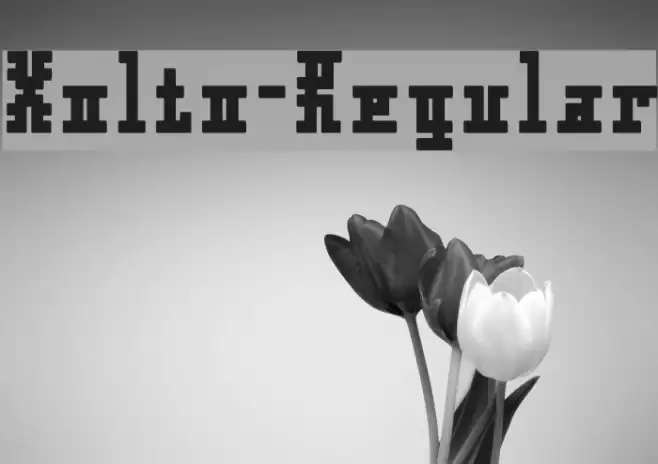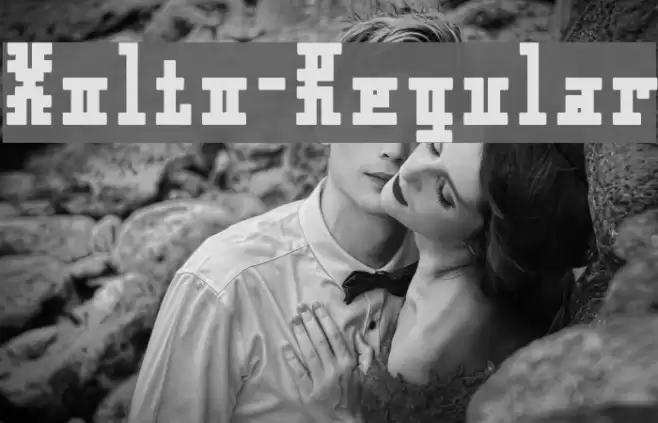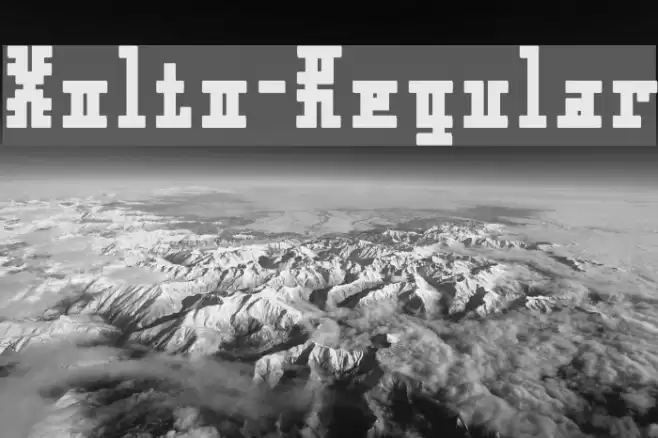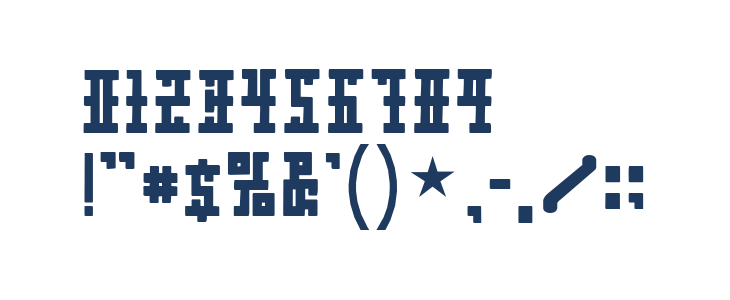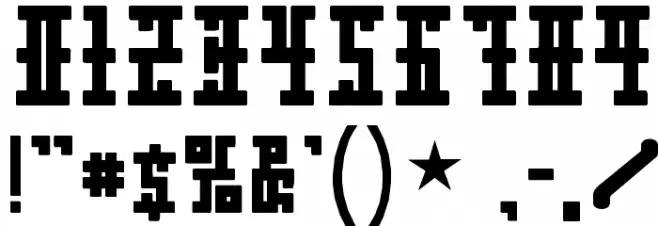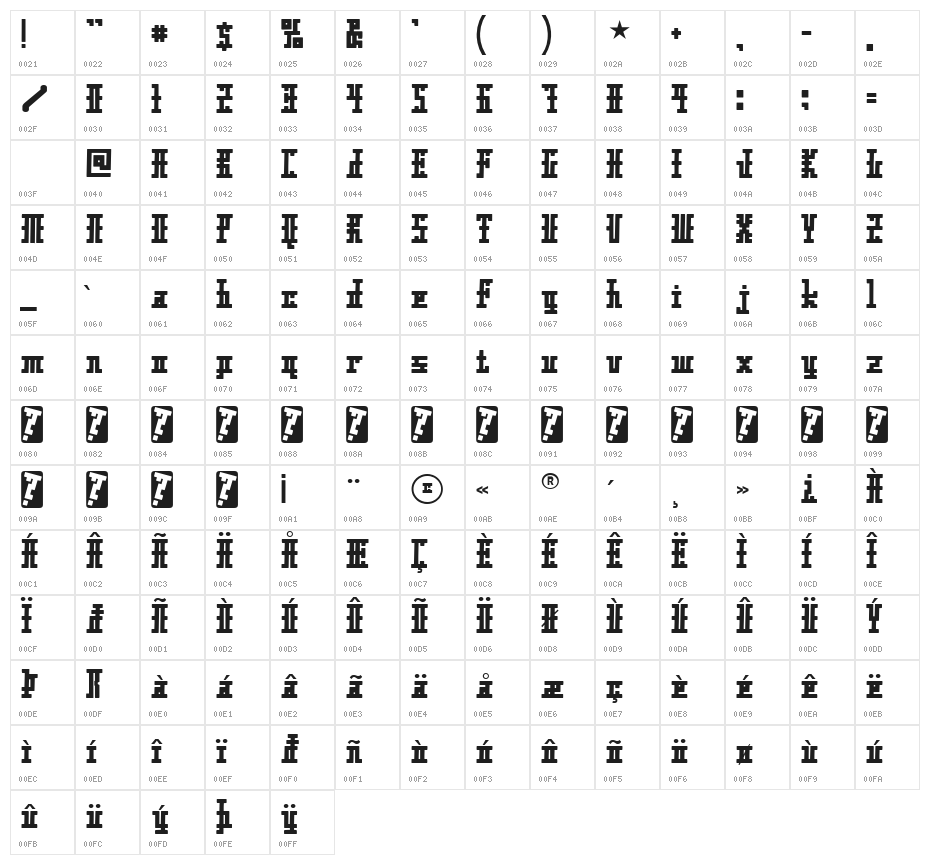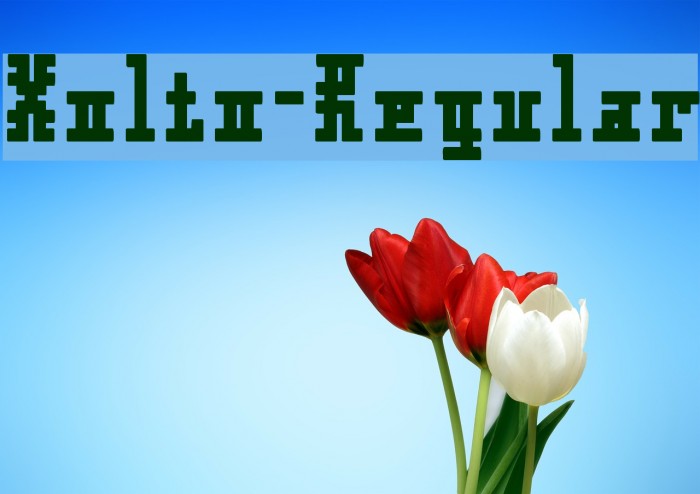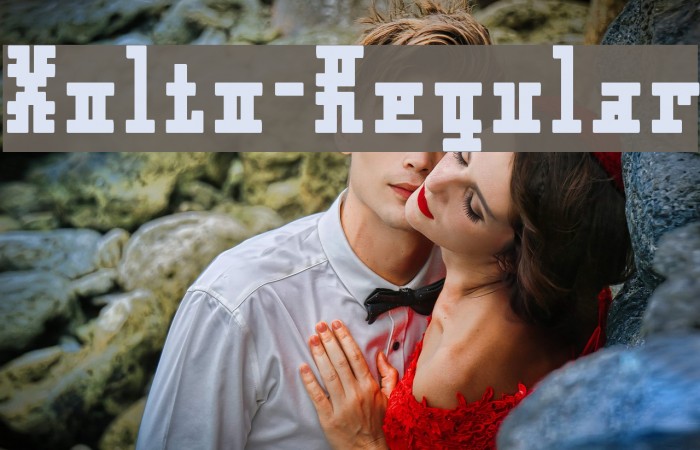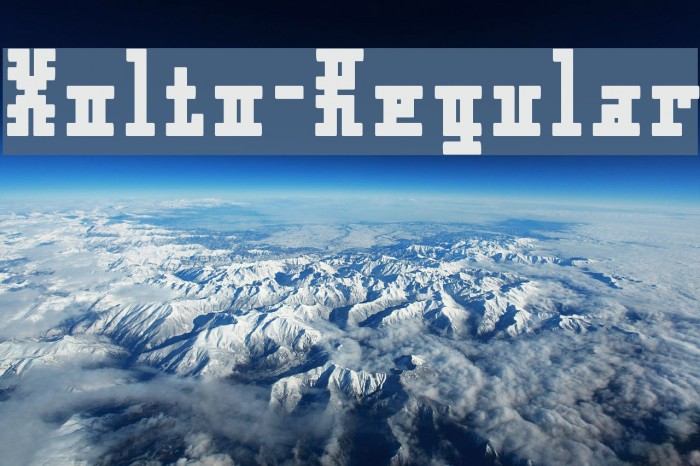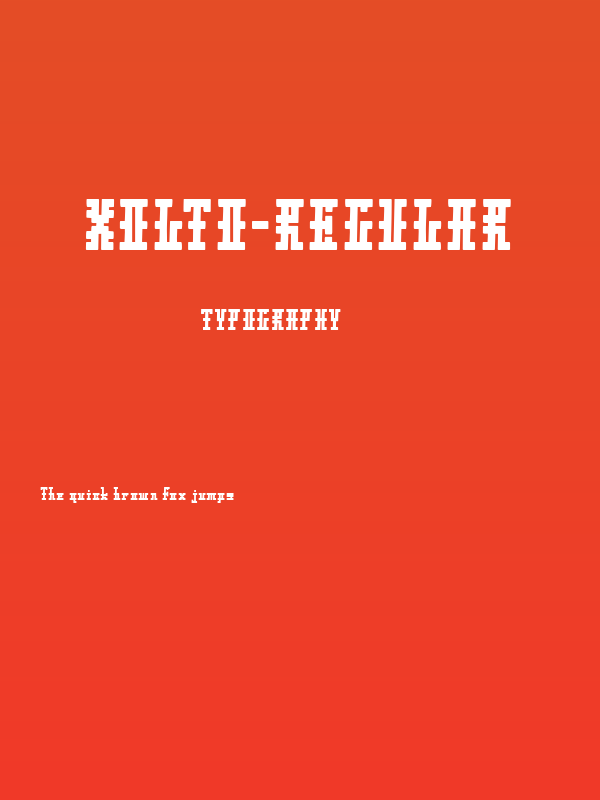
Xolto-Regular Font
Xolto-Regular Description
This font features a bold and striking design with a strong geometric structure. Each character is crafted with a blocky, pixelated style, reminiscent of retro digital displays or video game graphics. The uppercase and lowercase letters maintain a consistent height, creating a uniform appearance. Numbers and special characters follow the same bold, angular design, ensuring a cohesive look across all glyphs. The font's thick strokes and minimal contrast between thick and thin lines give it a robust and impactful presence, making it ideal for attention-grabbing headlines or titles.
A bold, geometric font with a retro digital style from Uncategorized fonts.
- Proposed Projects: Perfect for video game graphics, retro-themed posters, or digital art projects.
- Overall Style: Retro, Digital